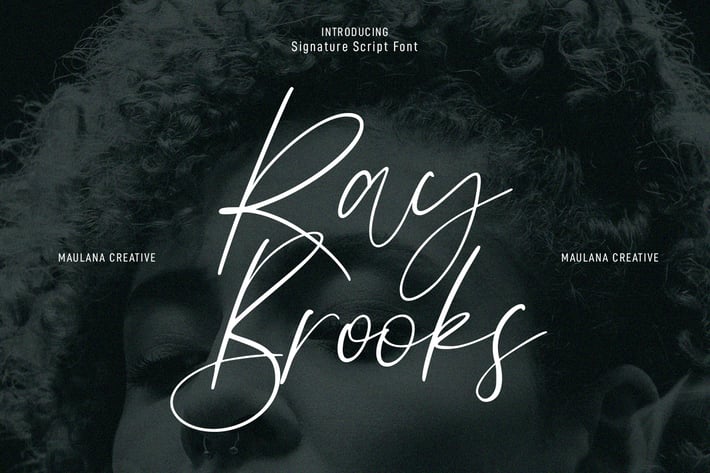
Ray Brooks Script Font
Ray Brooks is an expressive modern signature script font. With light high contrast stroke, fun character. To give you an extra creative work. Ray Brooks font support multilingual more than 100+ language. This font is good for logo design, Social media, Movie Titles, Books Titles, a short text even a long text letter and good for your secondary text font with sans or serif. Make a stunning work with Ray Brooks font.